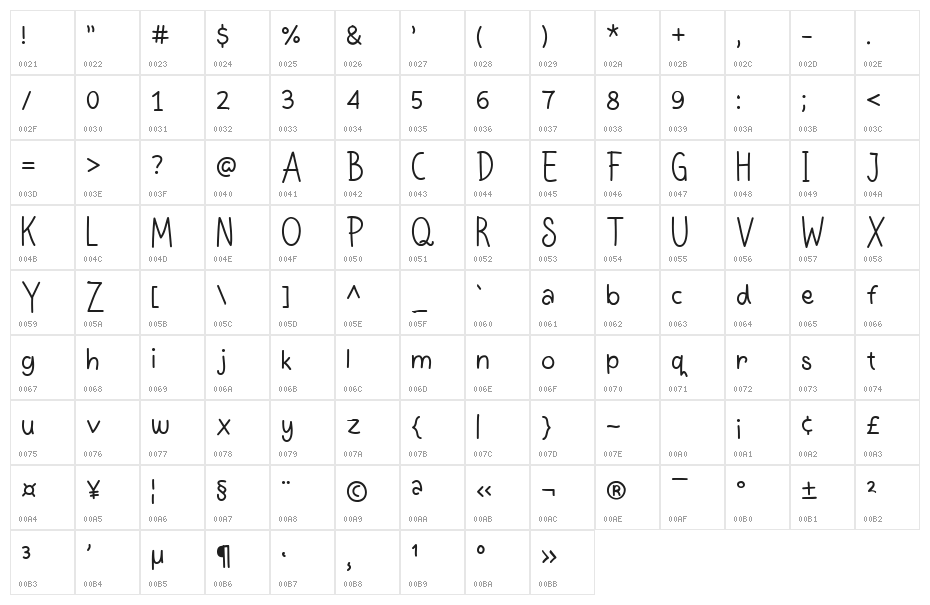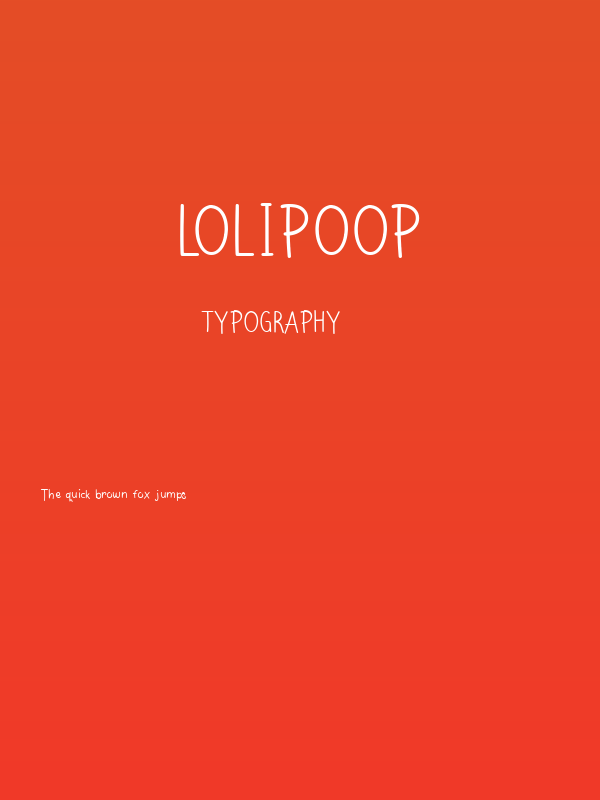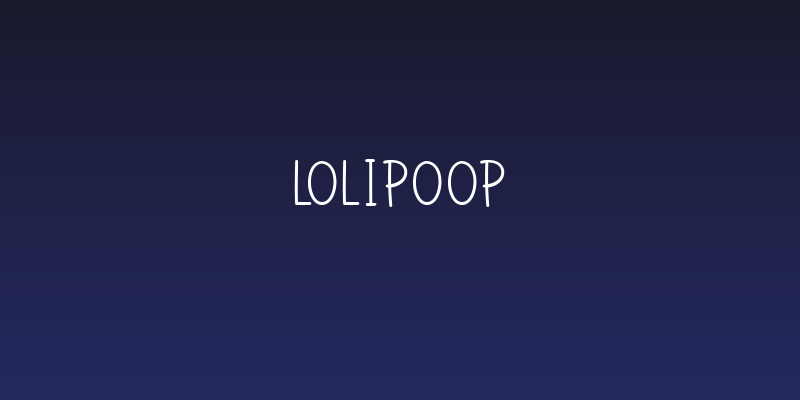
Lolipoop Font
Lolipoop Description
This playful and whimsical font features a handwritten style with rounded edges and a casual appearance. The characters are slightly irregular, giving it a friendly and approachable feel. The uppercase letters are tall and narrow, while the lowercase letters are more rounded and open. The numerals and special characters maintain the same playful aesthetic, making it suitable for creative and informal projects. The font's overall appearance is light-hearted and fun, perfect for adding a touch of personality to any design.
| Proposed Projects | Ideal for children's books, greeting cards, playful branding, and casual invitations. |